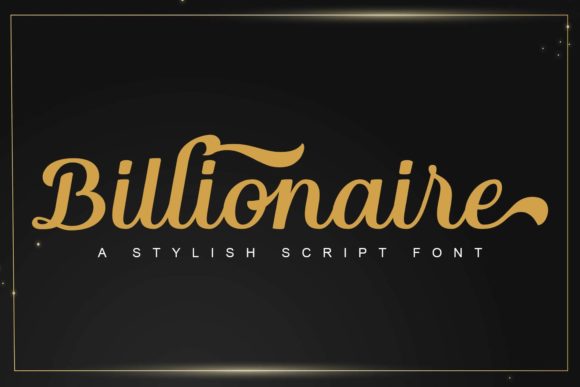
Behold Billionaire - the captivating script font that weaves a tapestry of elegance and charm. Its strokes dance with grace, evoking a symphony of emotions. With Billionaire, your words will blossom into works of art, leaving an enduring impression on every recipient.
Picture this: your wedding invitations adorned with Billionaire's delicate flourishes, conveying the joy and love of your special day. Each thank-you card penned in Billionaire's flowing script expresses your gratitude with a touch of warmth and sincerity. Quotes and greeting cards come alive with Billionaire's eloquent lines, making every message a heartfelt connection.
Unleash your creativity with Billionaire. Let it grace your logos and business cards, adding a touch of distinction to your brand. Its versatility knows no bounds, allowing you to weave your magic across a myriad of projects.
Embrace Billionaire's PUA encoding, a gateway to a world of glyphs and swashes that unlock endless possibilities. With ease, you can invoke the magic of this font, transforming your digital designs into masterpieces.
Billionaire is more than a font; it's a conduit for your emotions, a key to unlocking the beauty within your words. It's the perfect companion for Skype Business, enabling you to communicate with grace and poise, leaving a lasting impression on your colleagues and clients alike.
Seize the opportunity to make your mark on the digital world. Let Billionaire be your muse, guiding you to create designs that shimmer with brilliance. It's time to elevate your creative endeavors and leave a legacy of elegance and charm.